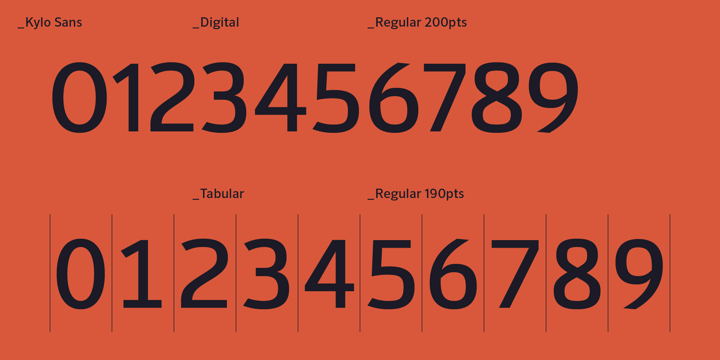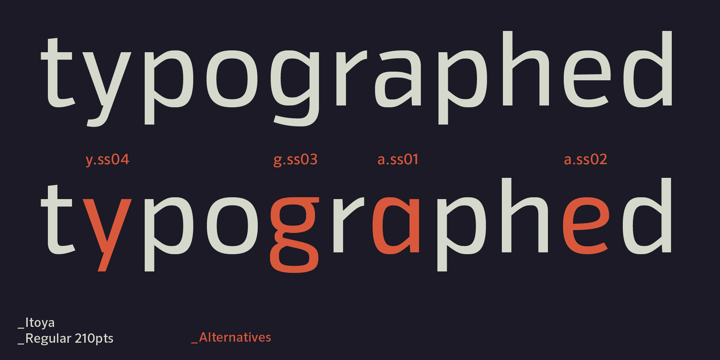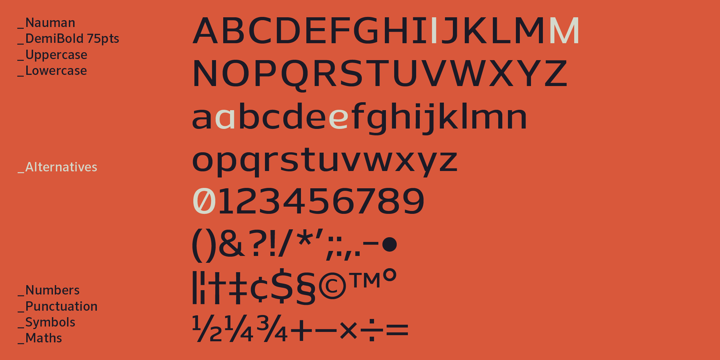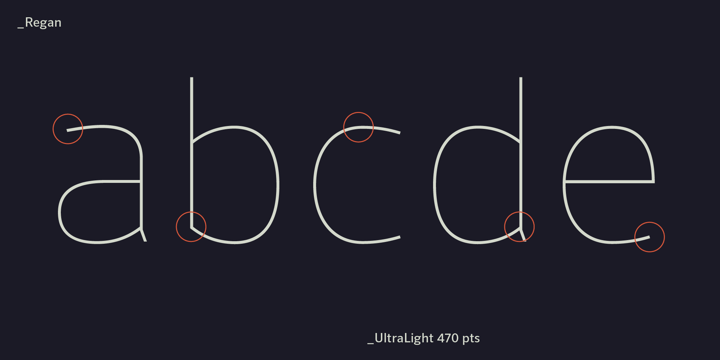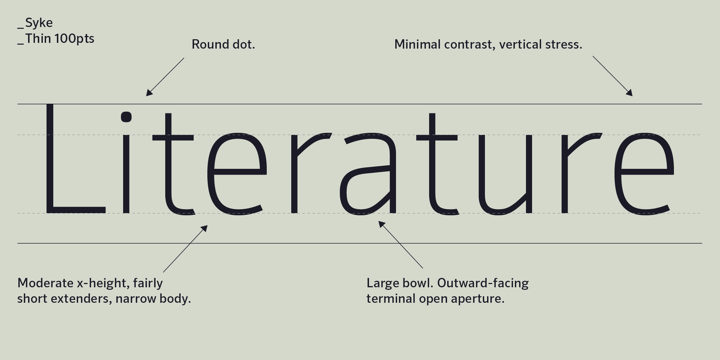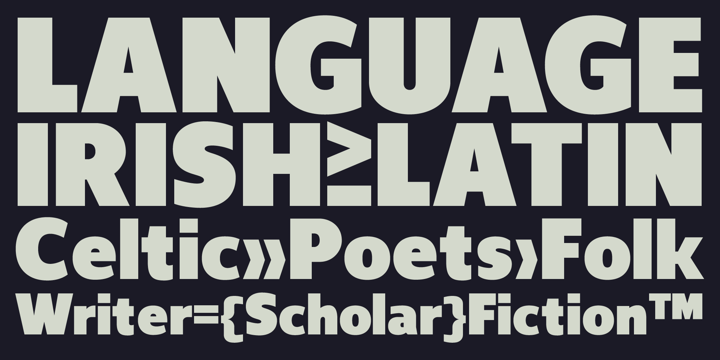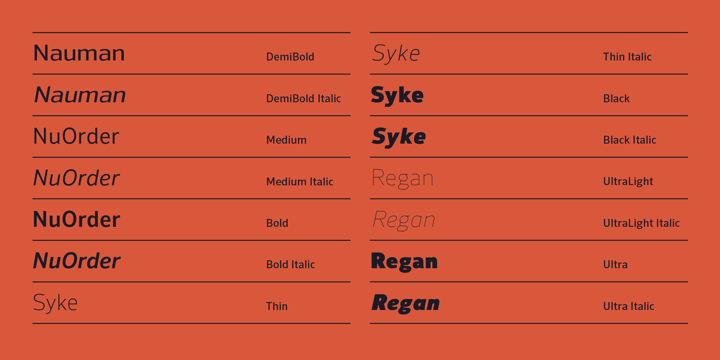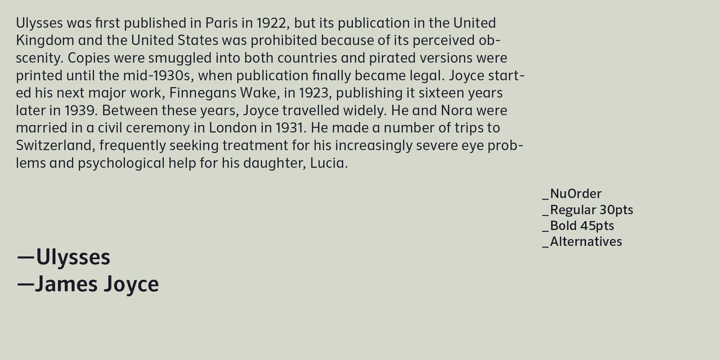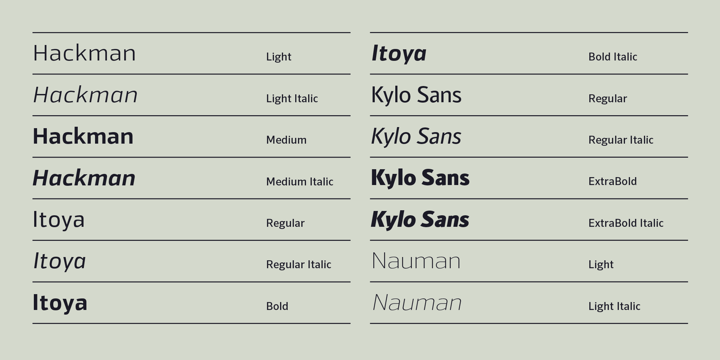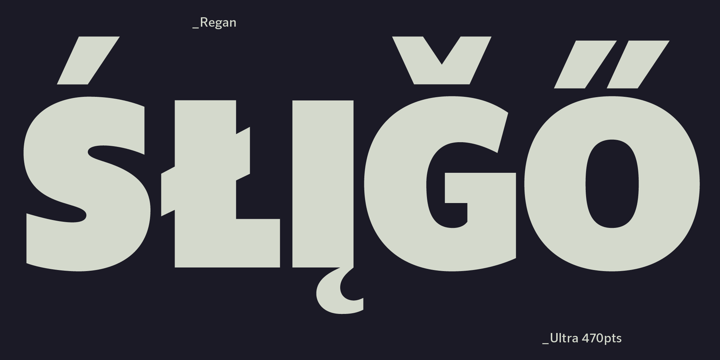
Humanist
A font bundle from The Northern Block that emphasizes legibility and subtle craftsmanship. Designed for maximum readability and featuring elegant details, these typefaces bring clarity and warmth to your projects, making them the perfect choice for any design that values precision and style.